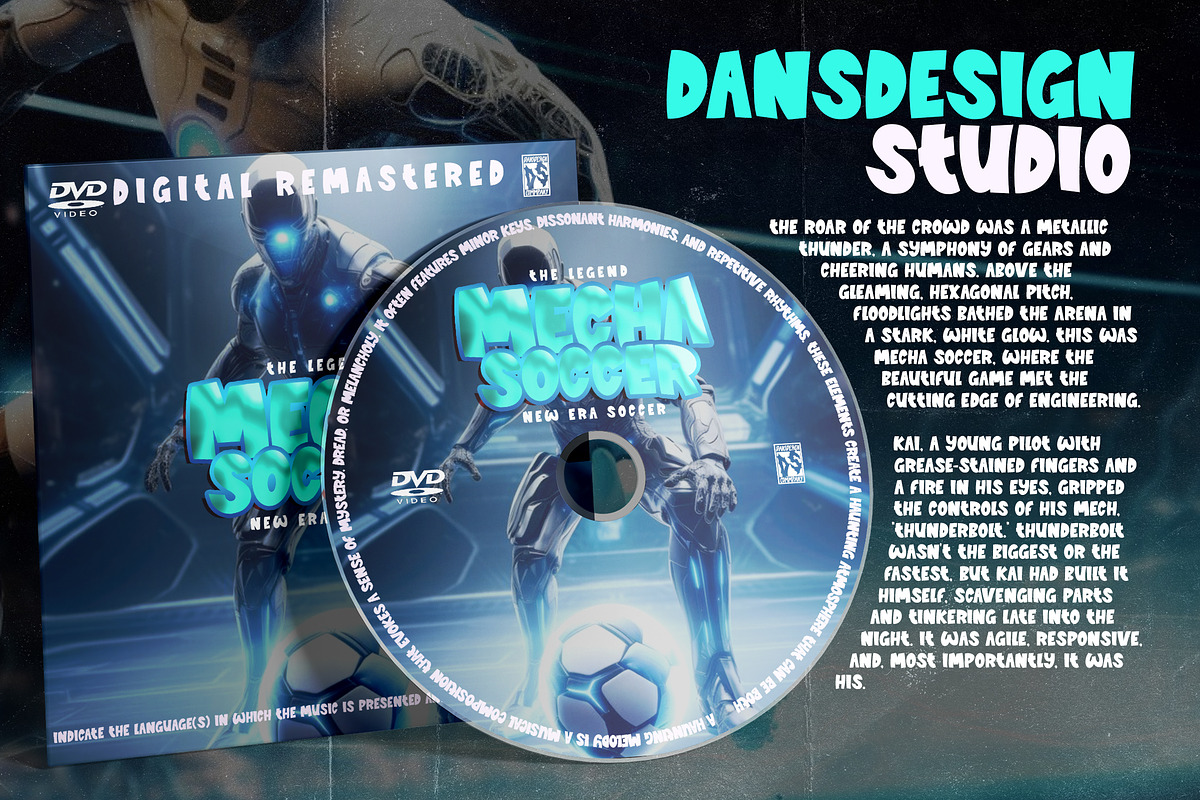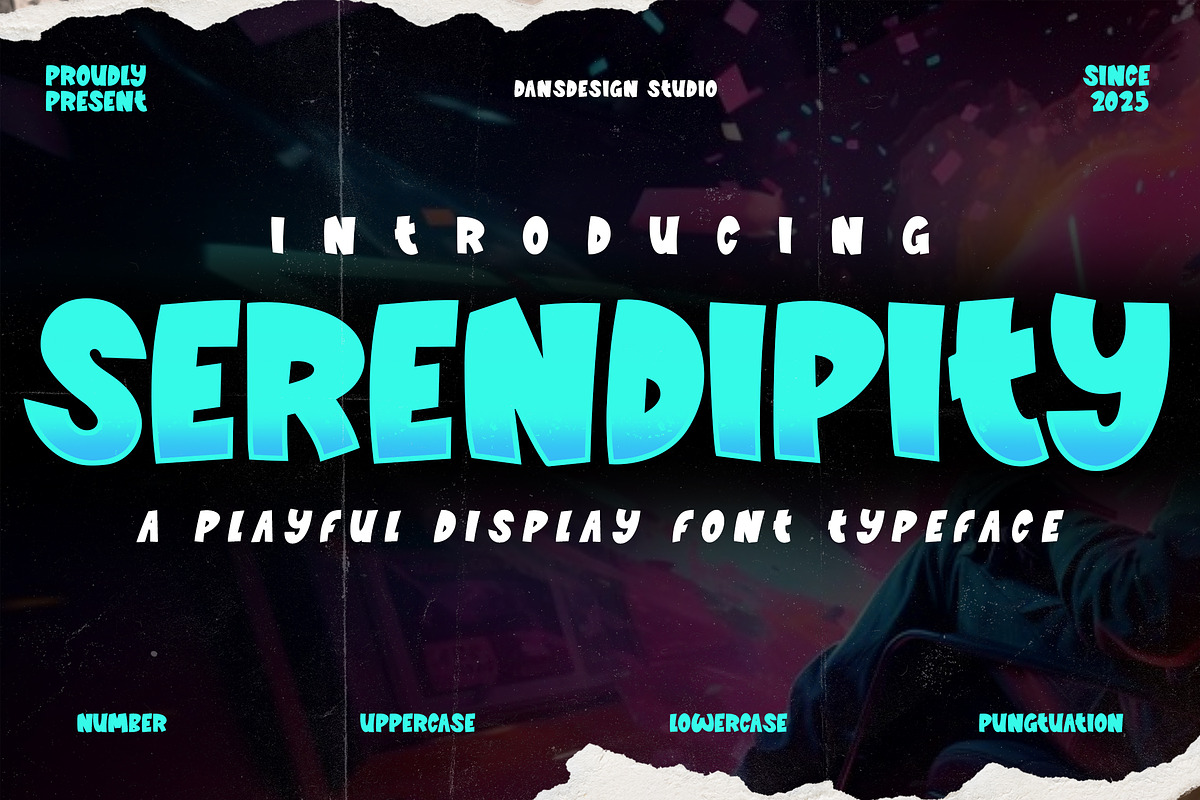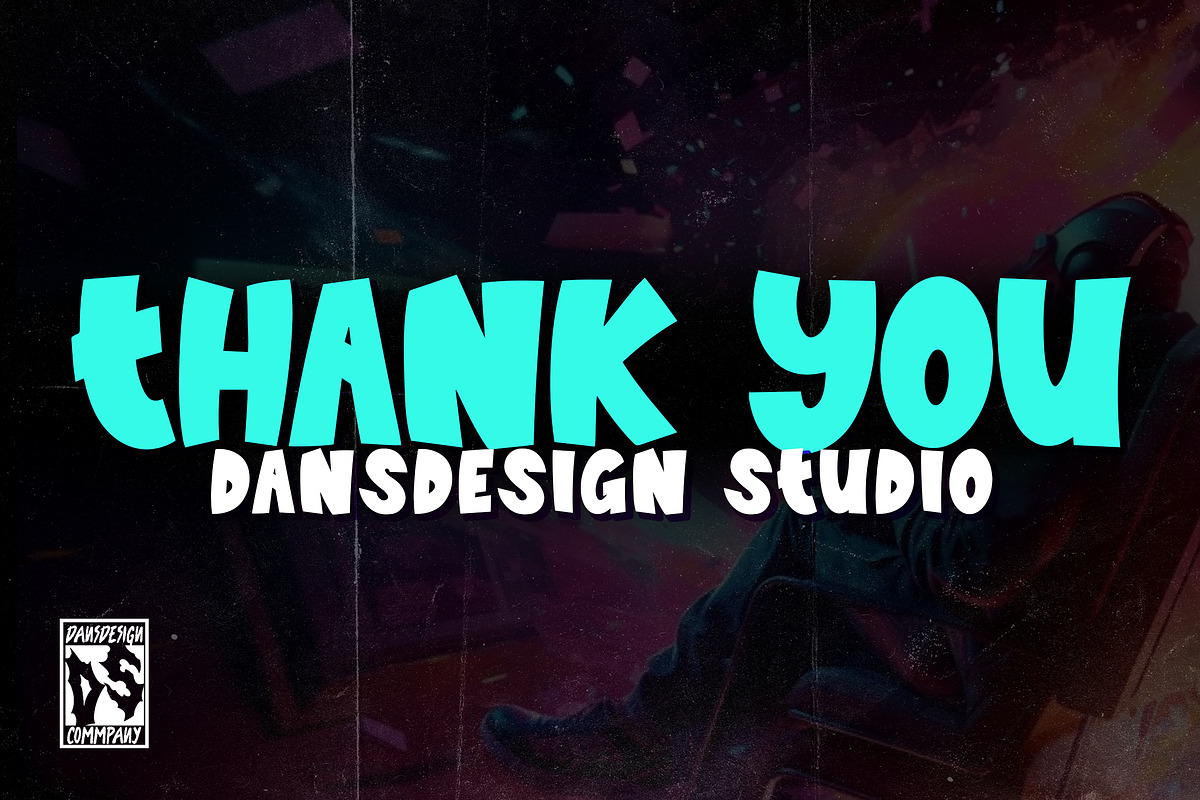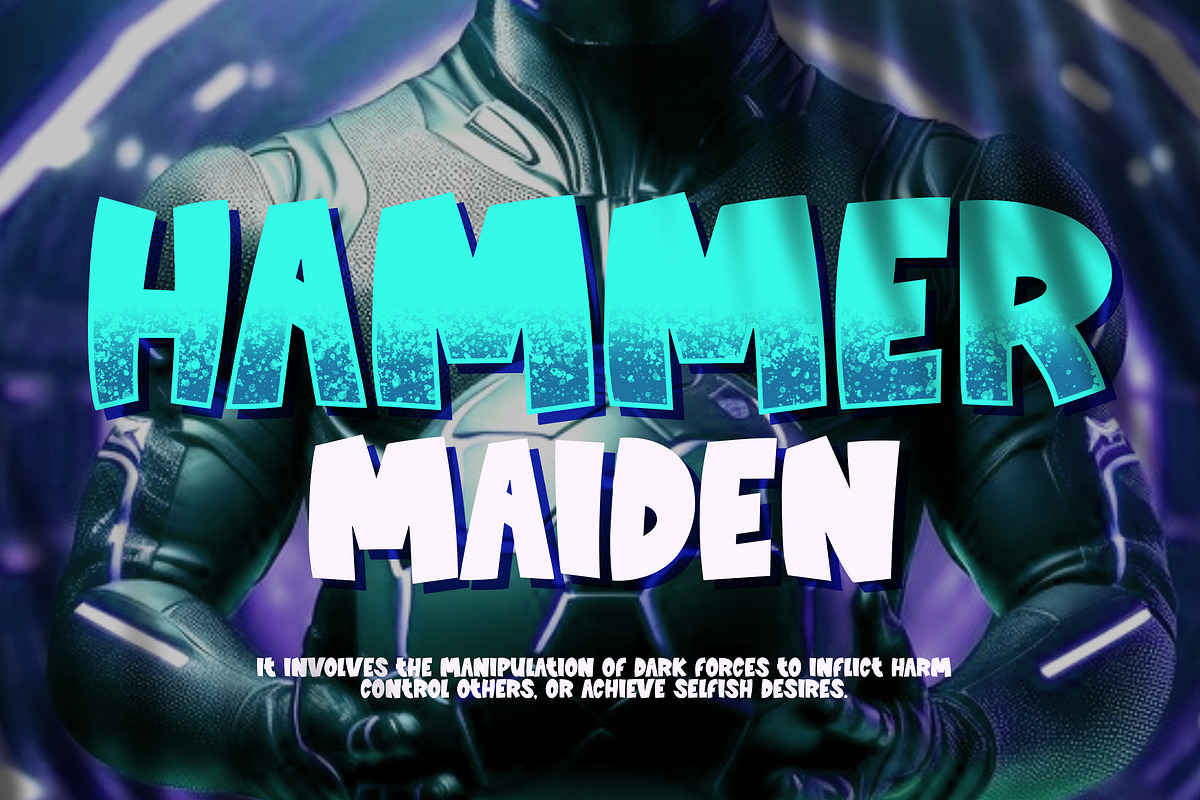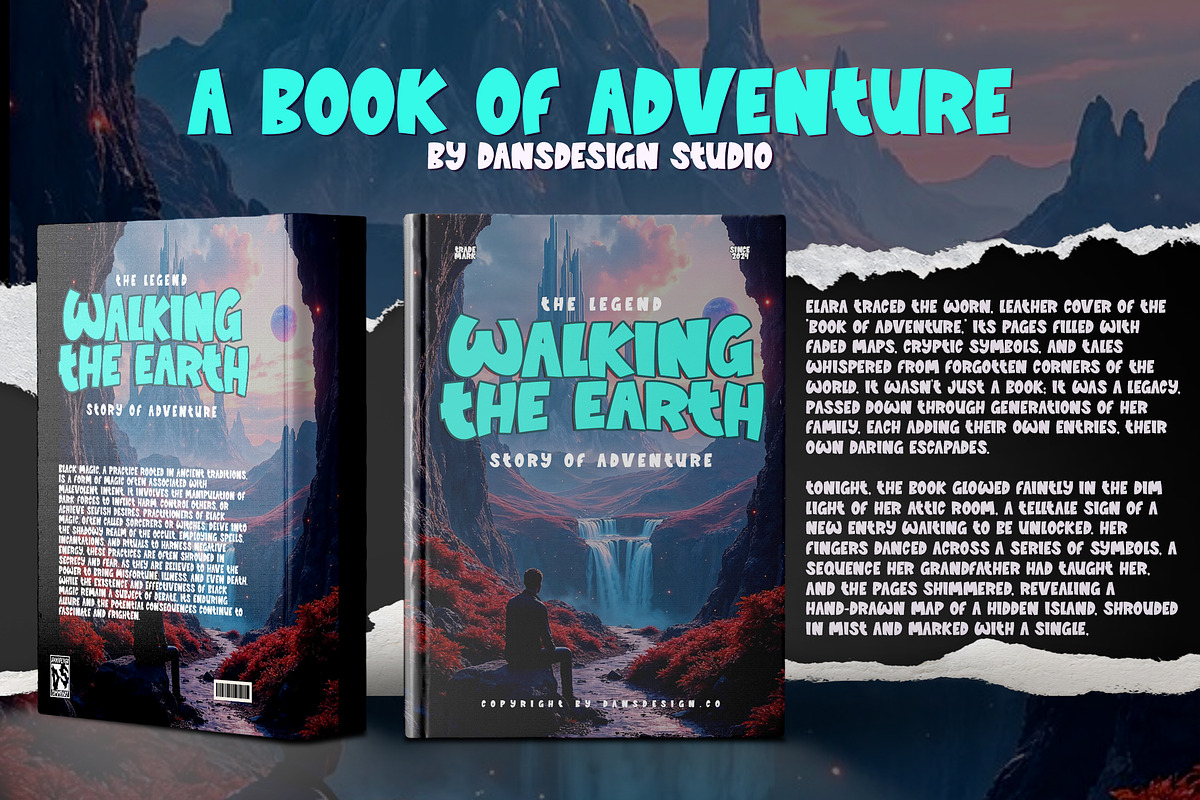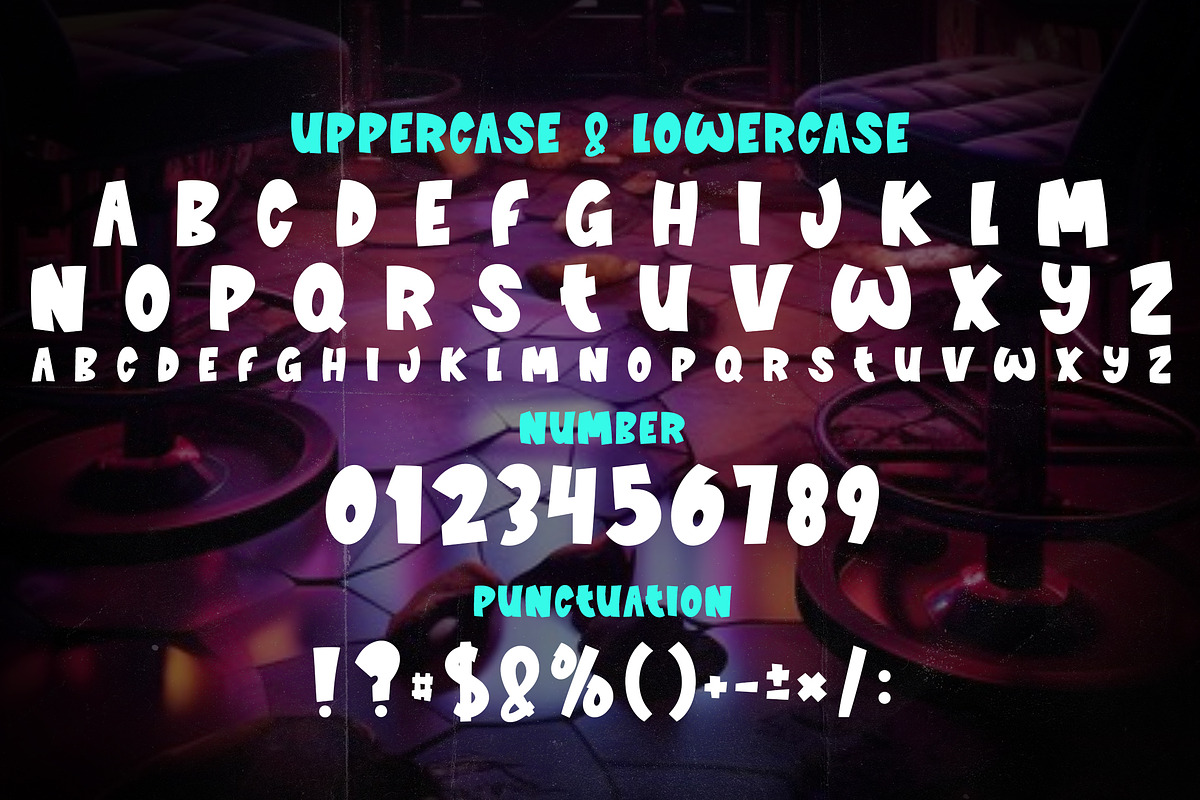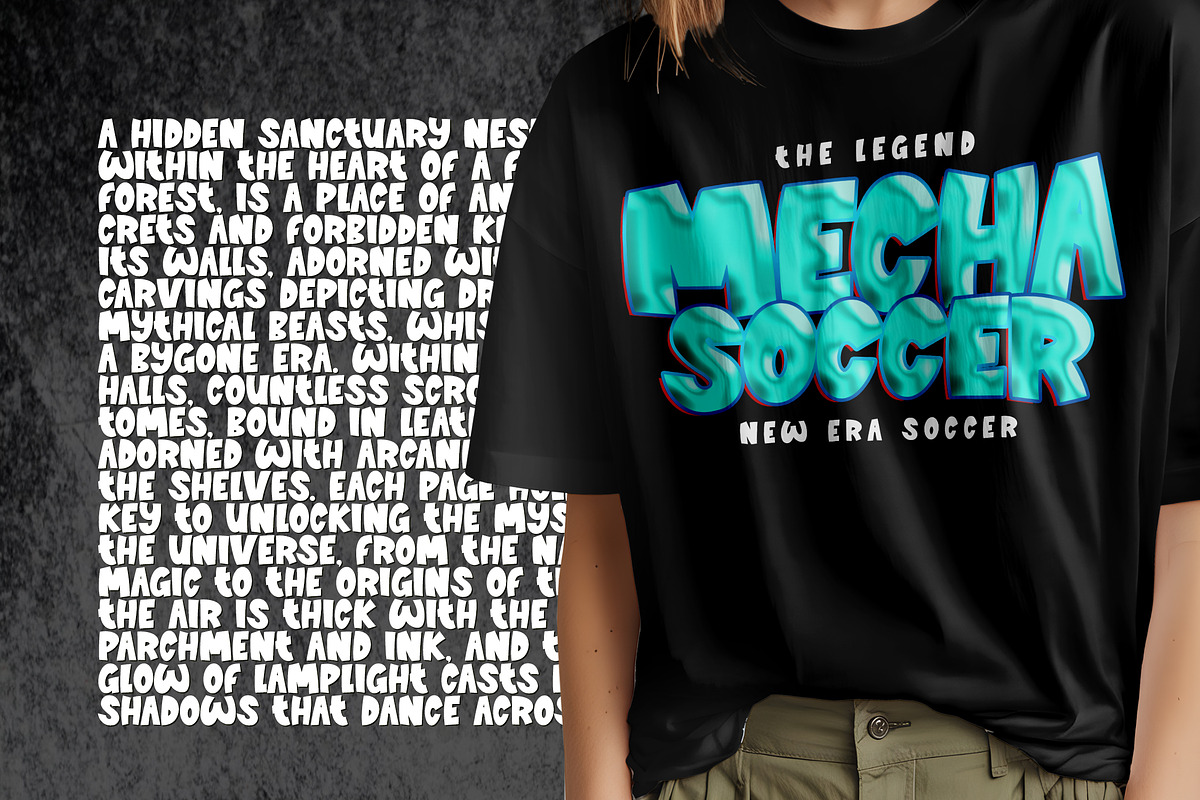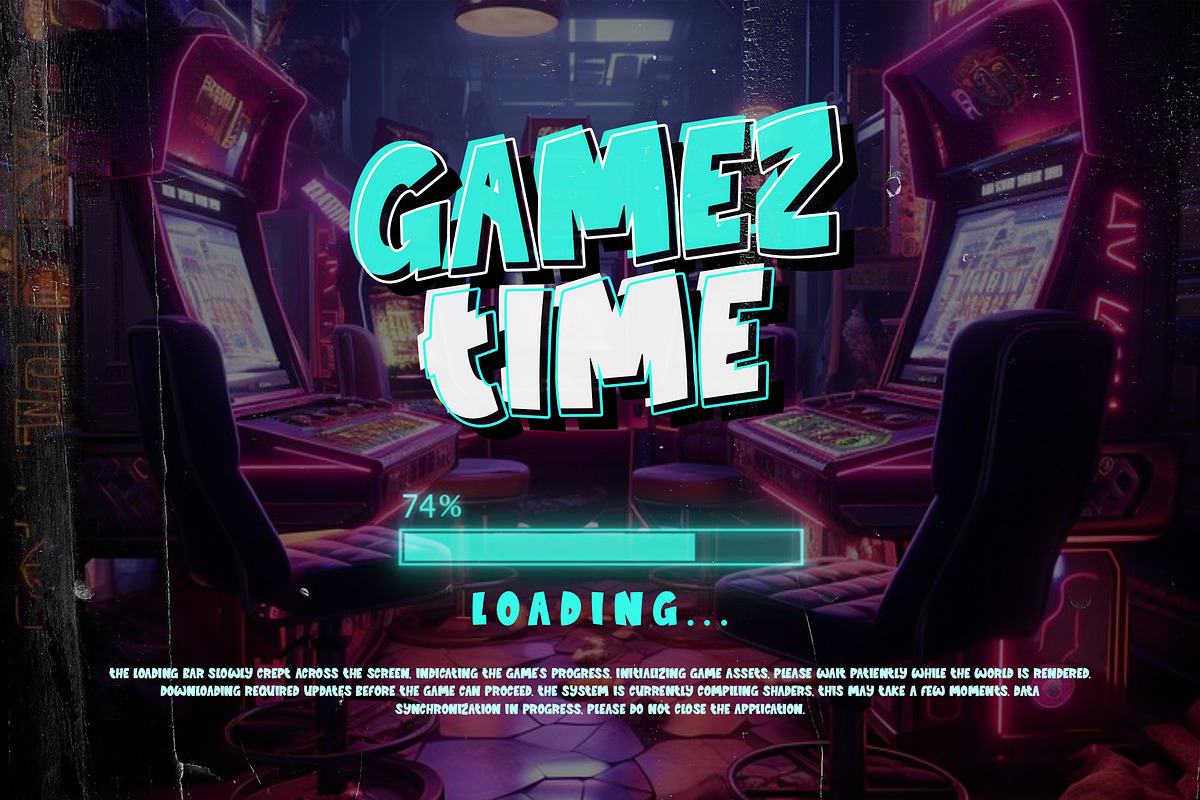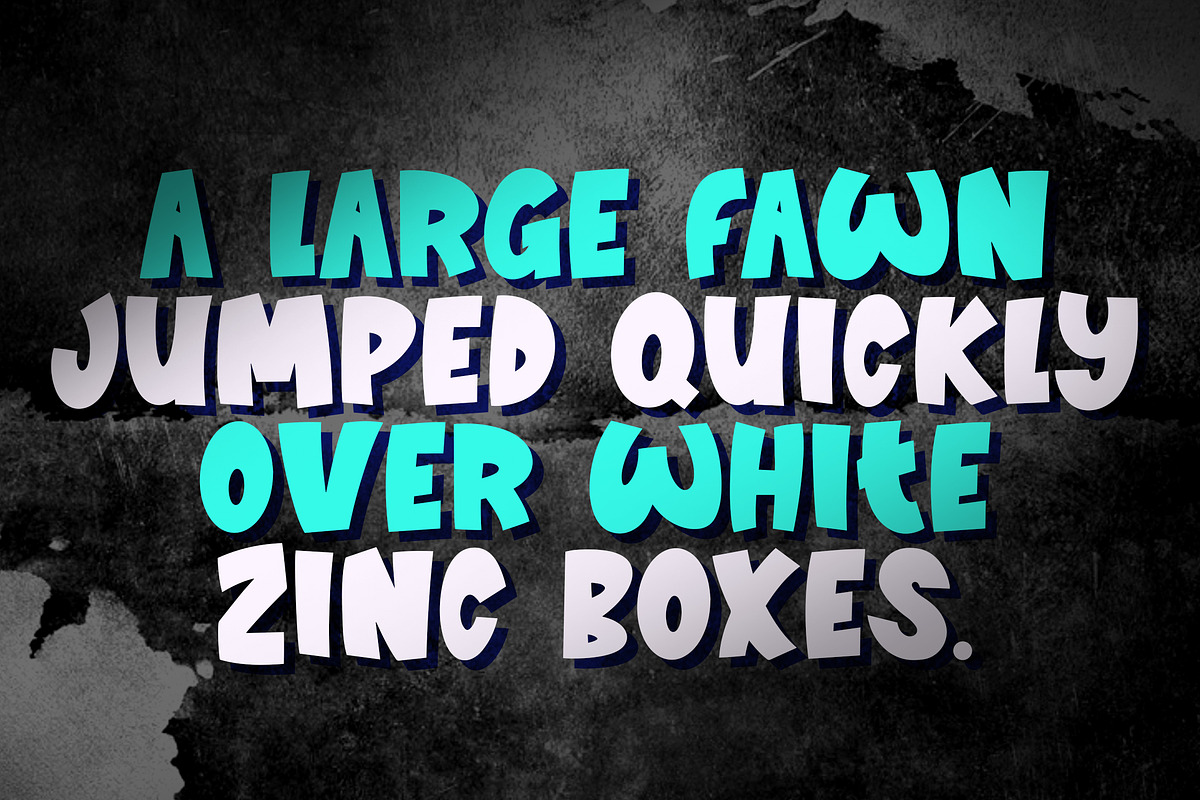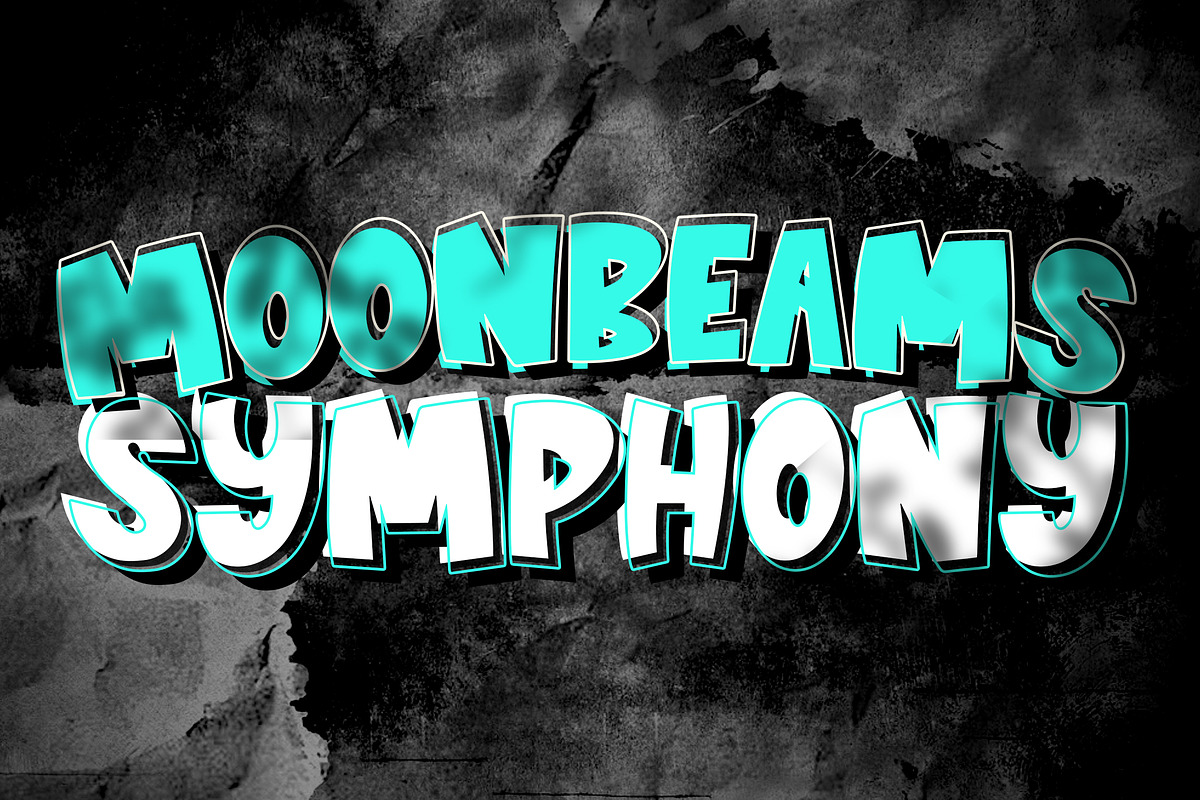
Serendipity Playful Display Cartoon
Serendipity – Playful Cartoon Font for Kids Projects, Posters, and Fun Digital Designs
Serendipity is a cheerful and bouncy display font packed with playful energy and cartoonish charm. Hand-drawn with a bold, quirky twist, it delivers a dose of joy and creativity that makes every word pop. With oversized curves, uneven shapes, and a vibrant attitude, this font adds personality and fun to every project—perfect for youthful visuals, kids content, and colorful digital storytelling.
Blending joyful chaos with eye-catching design, Serendipity is made to stand out on screens, prints, and beyond—turning simple text into vibrant statements full of character.
Kids-themed posters, books, and learning visuals YouTube intros, thumbnails, and animated content Game UI, sticker packs, and playful branding Creative educational materials and school projects Cartoon titles, digital scrapbooking, and birthday invites Bright, bold marketing visuals and interactive media
Hand-drawn cartoon style with a bold, bouncy feel Thick, expressive strokes with fun visual rhythm Great for kids, games, education, and fun content Optimized for attention-grabbing layouts Multilingual support (with accented characters) PUA encoded for easy character access Includes uppercase, lowercase, numbers & punctuation Formats: OTF / TTF / WOFF / WOFF2
Serendipity turns words into smiles. Whether you're designing for fun, education, or entertainment—this font brings playful creativity to life with every letter.